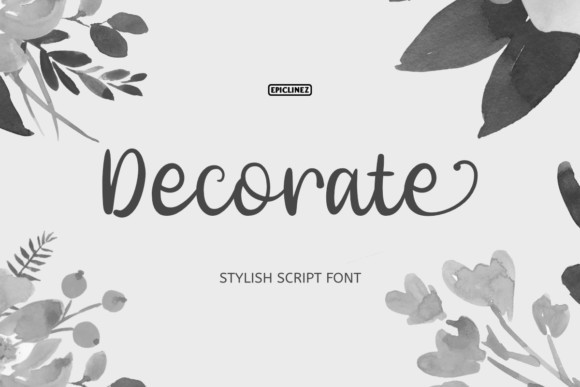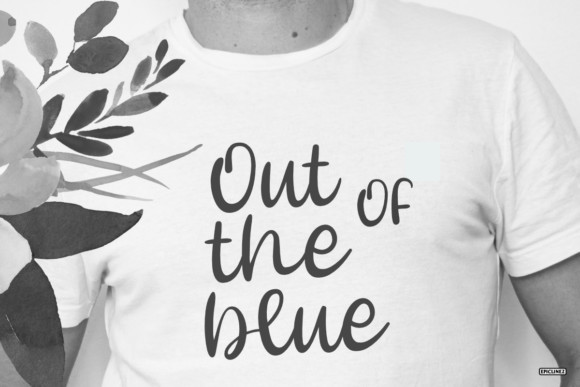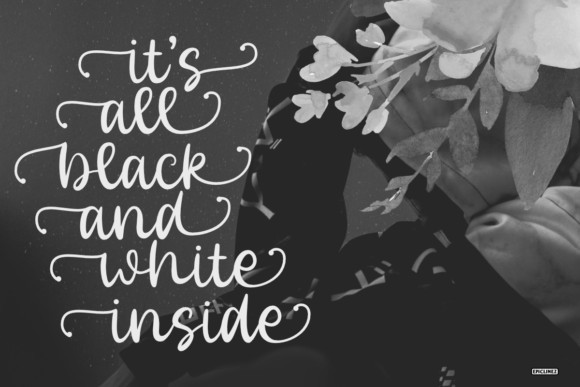
Decorate Font
Decorate is a cute handwritten font. It features fancy alternates. It will elevate a wide range of design projects to the next level, be it branding, headings, wedding designs, invitations, signatures, logos, labels, and much more!